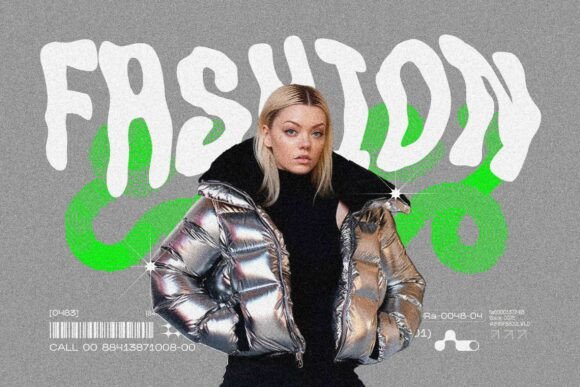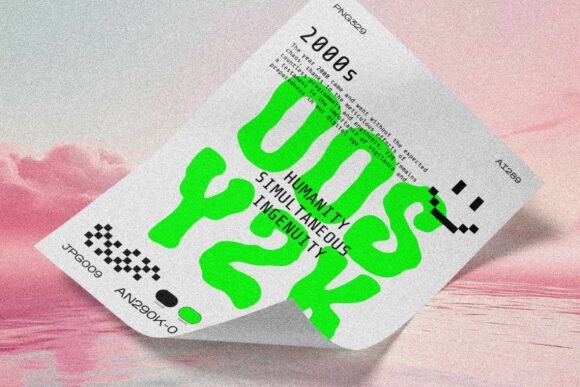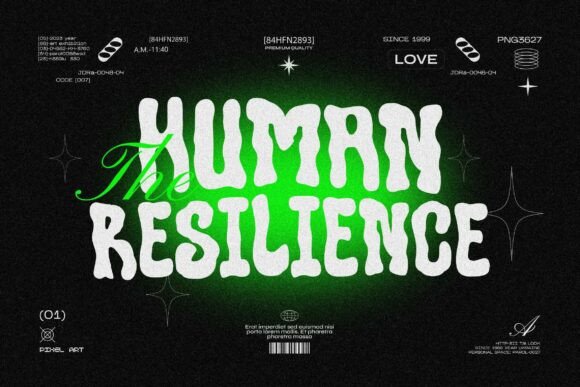
Introduction to Liquor Font
Liquor is a trippy wavy liquid decorative font and chunky with a lot of alternates and ligatures, which works perfectly for bold titles, festival posters, as a graphic element for bright tshirt or hoodies, or even backgrounds.
It has styles for each letter that fit together in a grid system (like tetris) so you can have a custom liquid blob type that is unique every time This is perfect for designers who are looking to add a psychedelic acid graphics contemporary hand-done touch to their projects.